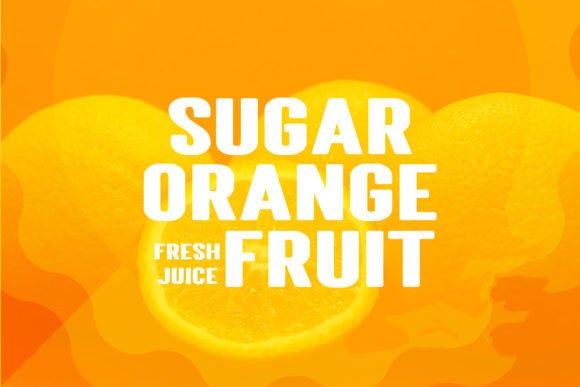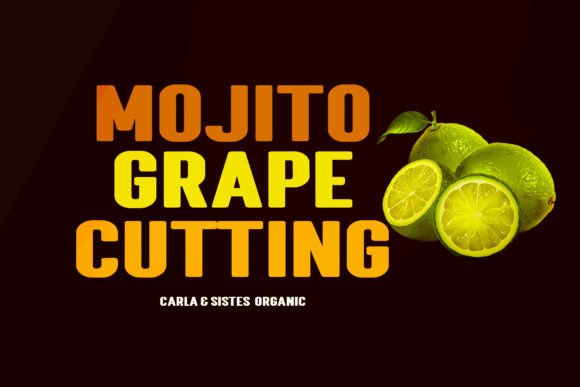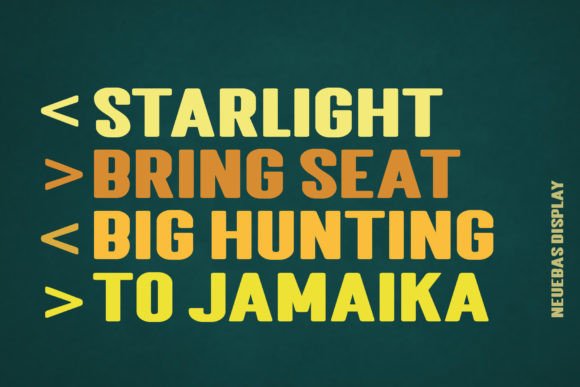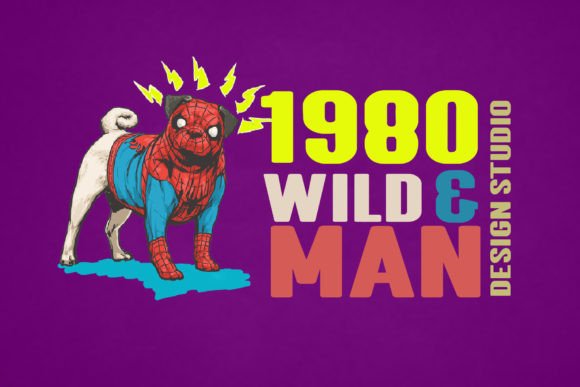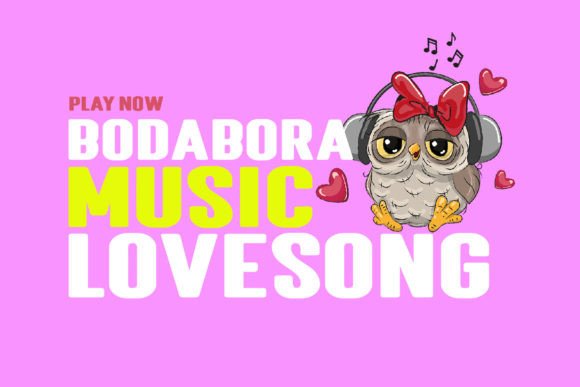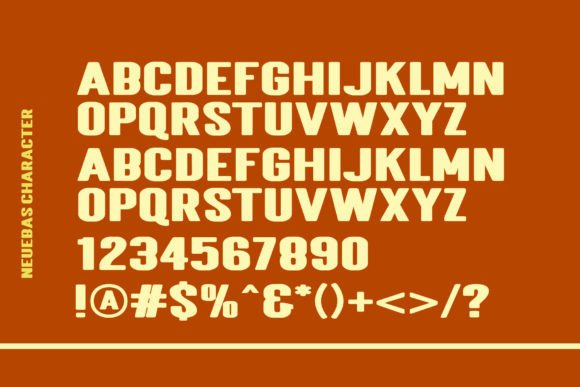
Introduction to Neubas Font
Neuebas is a modern, sleek display font.
Use it to create unique t-shirt designs, posters, digital designs, headlines, cards, and many more .
Key Features of Neubas Font
Why Choose Neubas Font?
Neubas Font offers exceptional quality and versatility, making it a valuable addition to your design toolkit. Whether you’re creating for personal projects or commercial use, Neubas Font delivers professional results.